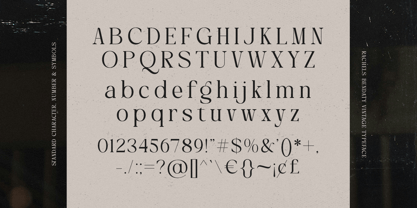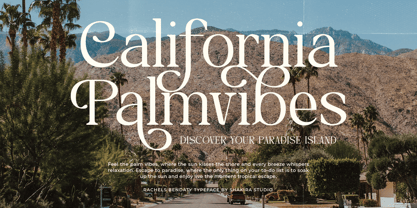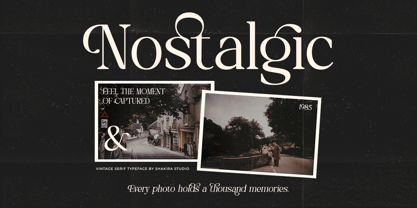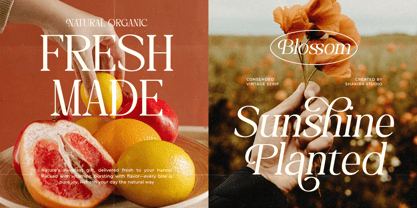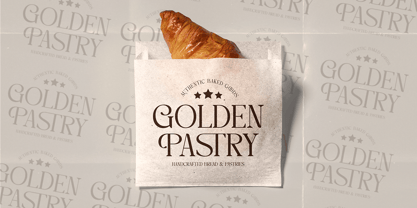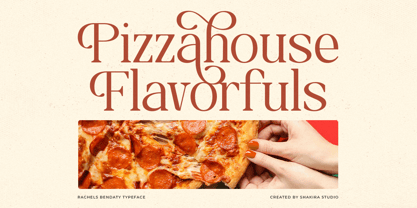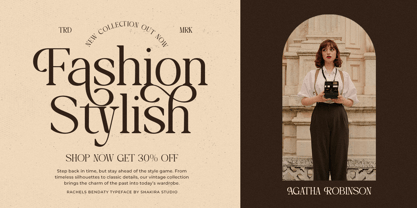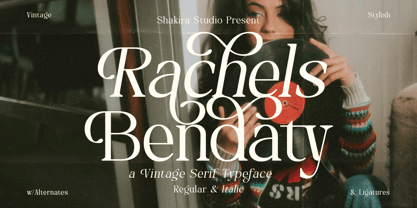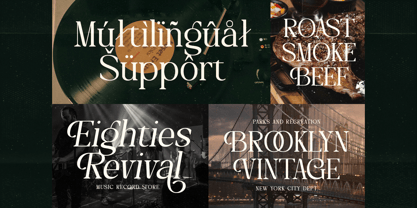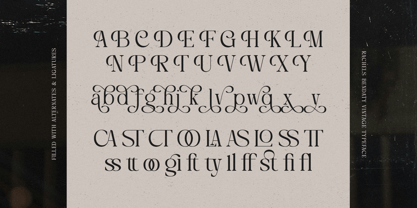
Rachels Bendaty
by Shakira Studio
The Rachels Bendaty Font Family was designed by Idhham Cholid Rikzano Yahya and published by Shakira Studio. Rachels Bendaty contains 2 styles and family package options. More about this family
Rachels Bendaty is a retro display serif font available in regular and italic styles. It features a stylish and trendy design with elegant alternates and ligatures, perfect for branding, editorial projects, social media, invitations, and more. Elevate your designs with its timeless charm and modern sophistication.
• Regular & Italic
• All Multilingual symbol
• Opentype features ( ligature, alternate )
Multilingual character supports : (Afrikaans, Albanian, Catalan, Croatian, Czech, Danish, Dutch, English, Estonian, Finnish, French, German, Hungarian, Icelandic, Italian, Lithuanian, Maltese, Norwegian, Polish, Portuguese, Slovenian, Spanish, Swedish, Turkish, Zulu)
Designers: Idhham Cholid Rikzano Yahya
Foundry: Shakira Studio